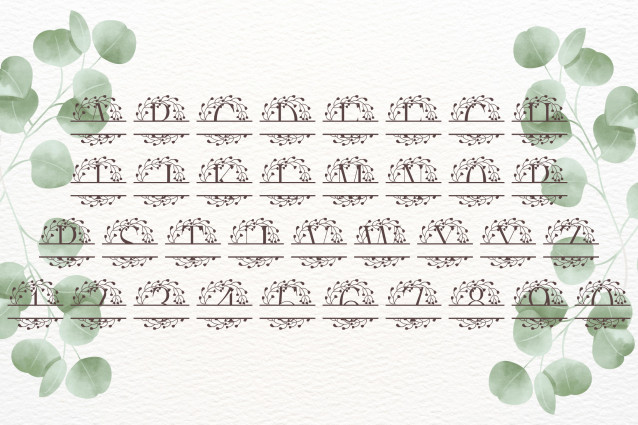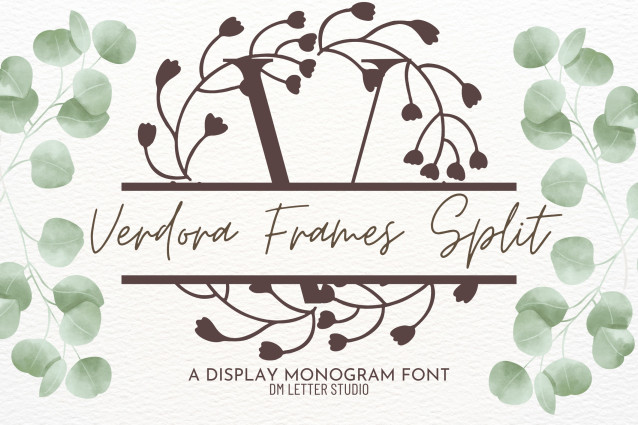
Verdora Frames Split Monogram Font
Verdora Frames Split Monogram Font is an elegant serif monogram font framed in delicate leafy outlines, featuring a centered split across each uppercase letter. This makes it easy to personalize your designs with names, initials, or dates—while maintaining a nature-inspired, professional look. Ideal for weddings, branding, stationery, and custom gift designs, this font offers both structure and organic charm.